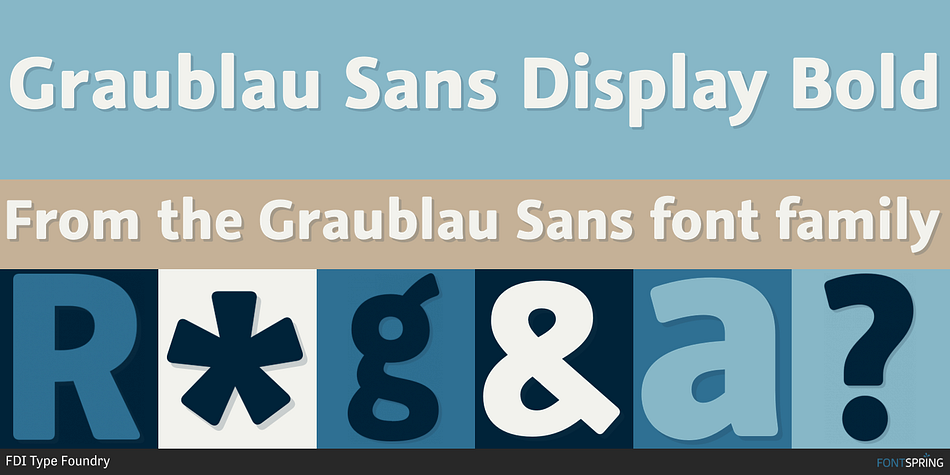
Designed by Georg Seifert, Graublau Sans is a sans serif font family. This typeface has twenty styles and was published by FDI Type Foundry.
Graublau Sans Display Bold
The design of Graublau Sans Pro took Georg Seifert over 5 years. With 7 weights and over 1000 glyphs per style, Graublau Sans is a type family that suits all typographic tasks. The regular styles have a rather clean and neutral appearance. The italics on the other hand, have a vivid design based on handwriting. For the use in headlines or logotypes Graublau Sans Pro offer 6 additional display styles with rounded corners and tighter spacing.
Beside the typical western codepages, Graublau Sans Pro also supports Greek, Cyrillic, CE (Central European) and Turkish. There are also several sets of figures available: oldstyle figures and lining figures (both proportional and tabular), small caps figures, fraction figures, subscript and superscript figures and figures inside circles.